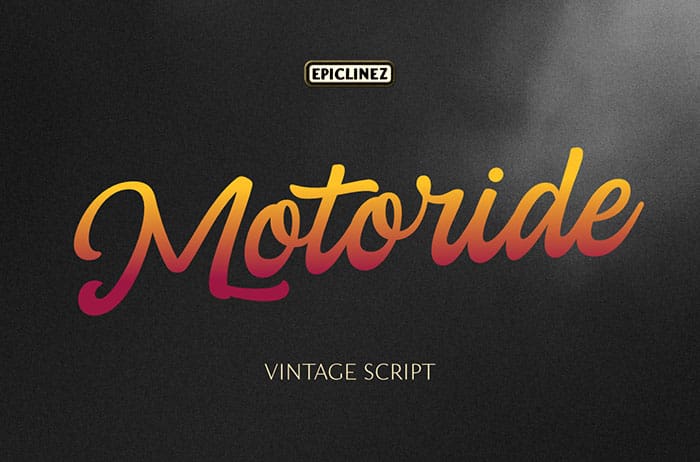
Motoride Calligraphy Script Font
Motoride calligraphy script font is an authentic handcrafted lettering that transformed into a font. It was inspired by the world of custom motorcycles. Its vintage style is suitable for every design which needs a timeless typeface, such as logotype, apparel, branding, packaging, advertising, Instagram quotes and more. This font is available only for personal use. Created this font by Epiclinez. You can also search more free Fonts. Thanks.